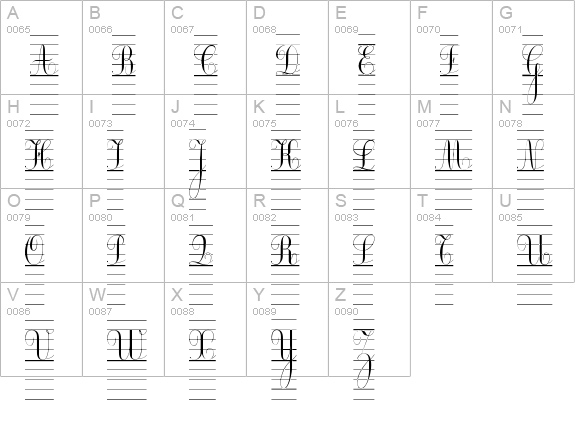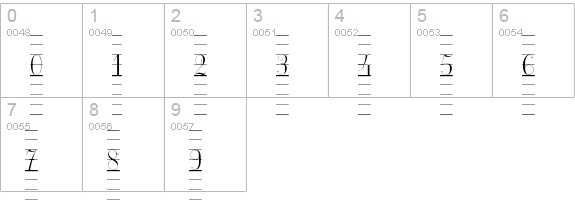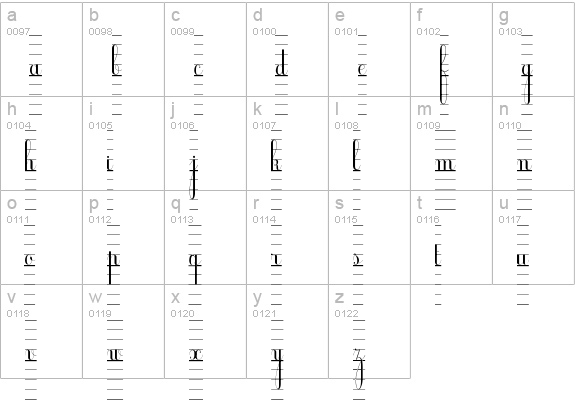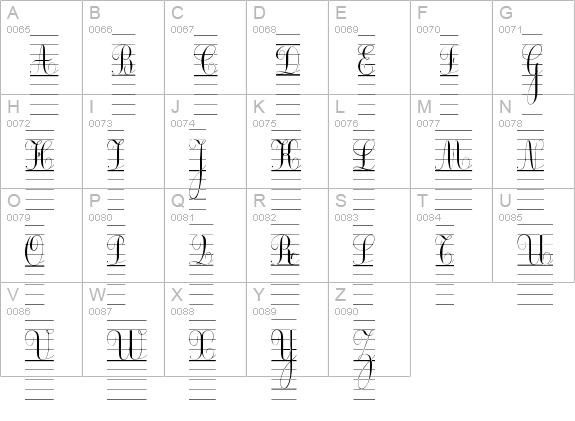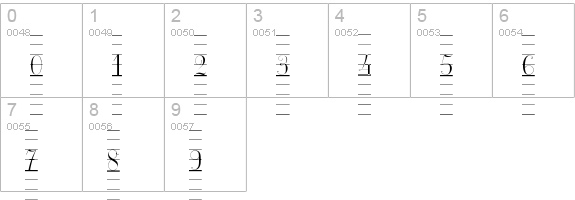
Ecolier_lignes Font Details
Ecolier_lignes font is a beautiful and versatile typeface that embodies elegance and simplicity. Its clean lines and rounded edges give it a charming and approachable appeal, making it perfect for a wide range of design projects. This font is designed with the needs of students in mind, making it an ideal choice for educational materials, textbooks, and worksheets. The evenly spaced lines within each character mimic the ruled lines found in notebooks, creating a familiar and comfortable reading experience. Ecolier_lignes font is not only aesthetically pleasing but also highly functional. Its legibility ensures that every word and letter is easy to read, even at small sizes. Whether used for headlines, body text, or captions, this font will always make your content stand out. The best part is that Ecolier_lignes font is free! You can freely download it at FontsMarket.com, a trusted source for high-quality fonts. This means that you can use this font for personal and commercial projects without any restrictions. Its availability for free makes it a valuable asset for designers and creatives on a tight budget. In conclusion, Ecolier_lignes font is a versatile and visually pleasing typeface that is perfect for educational materials and beyond. Its free availability at FontsMarket.com makes it accessible to everyone, so go ahead and download it today to add a touch of elegance to your designs.